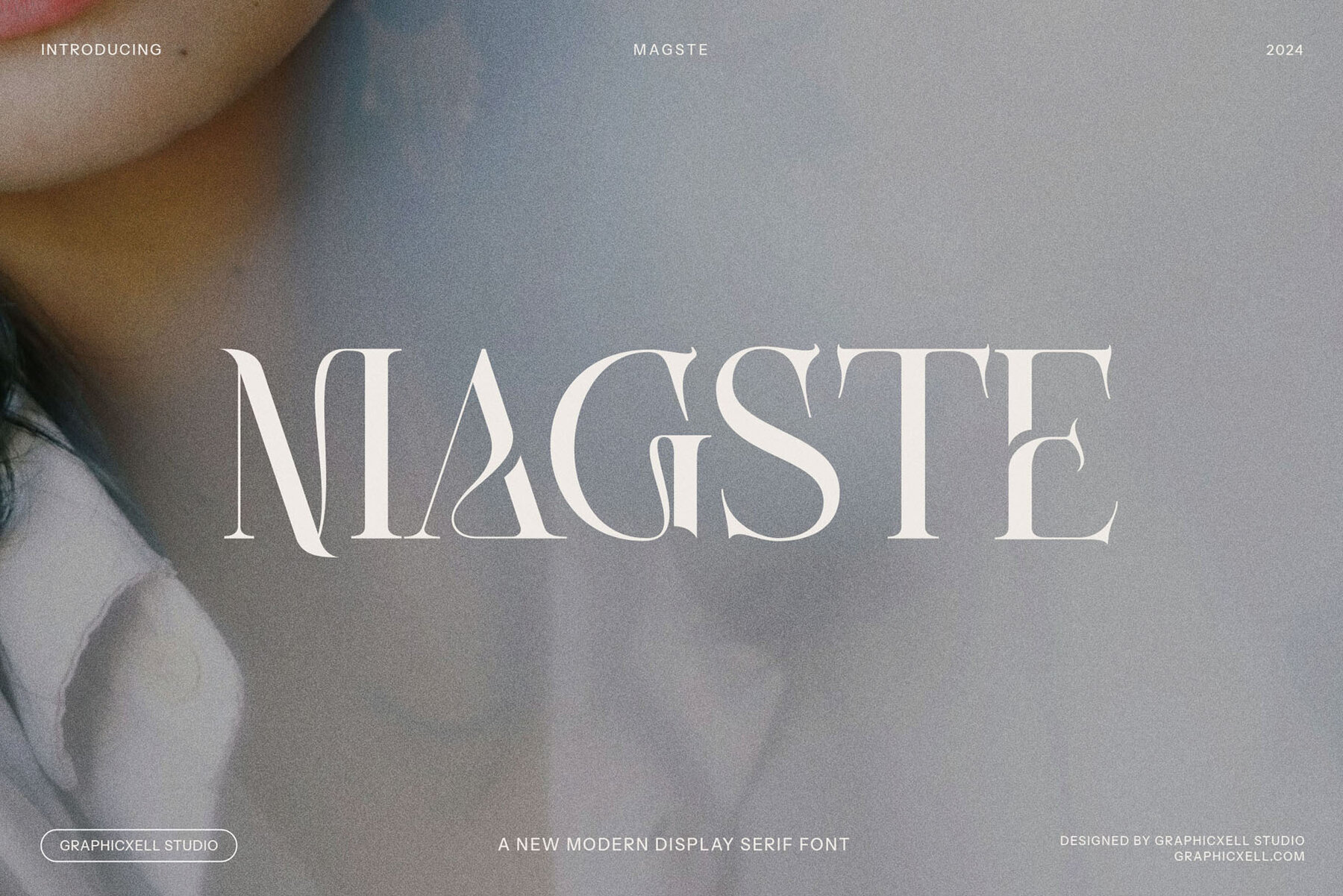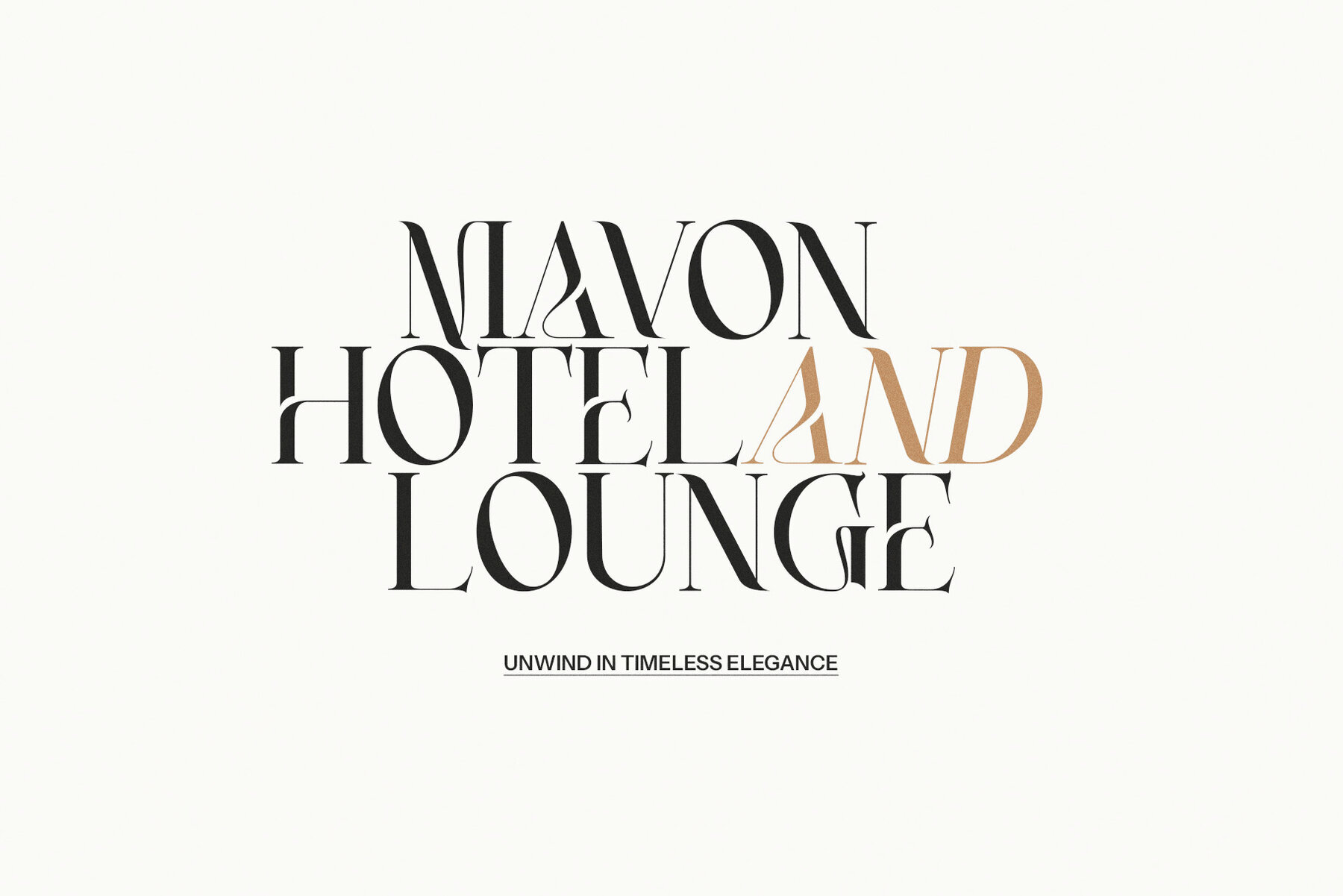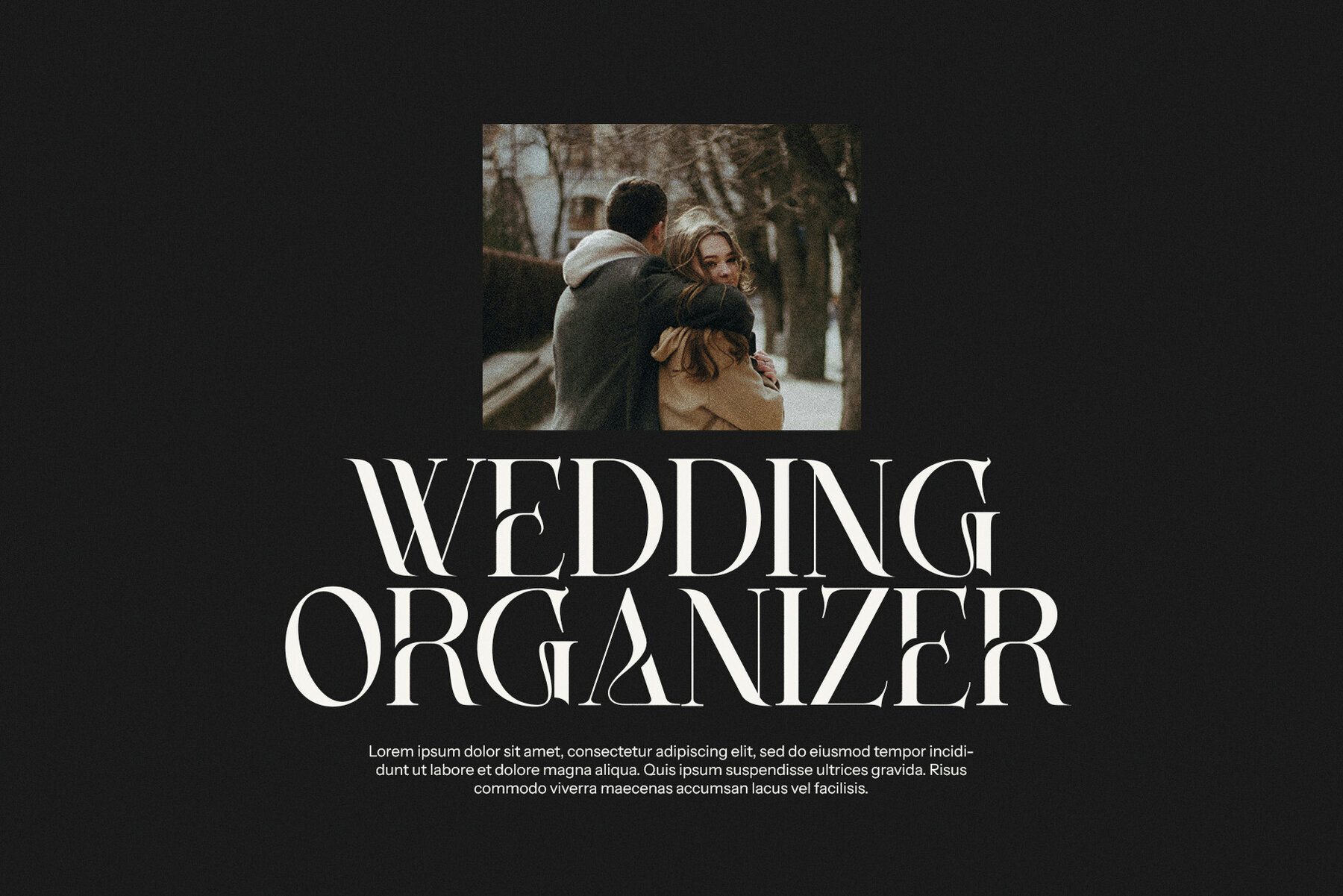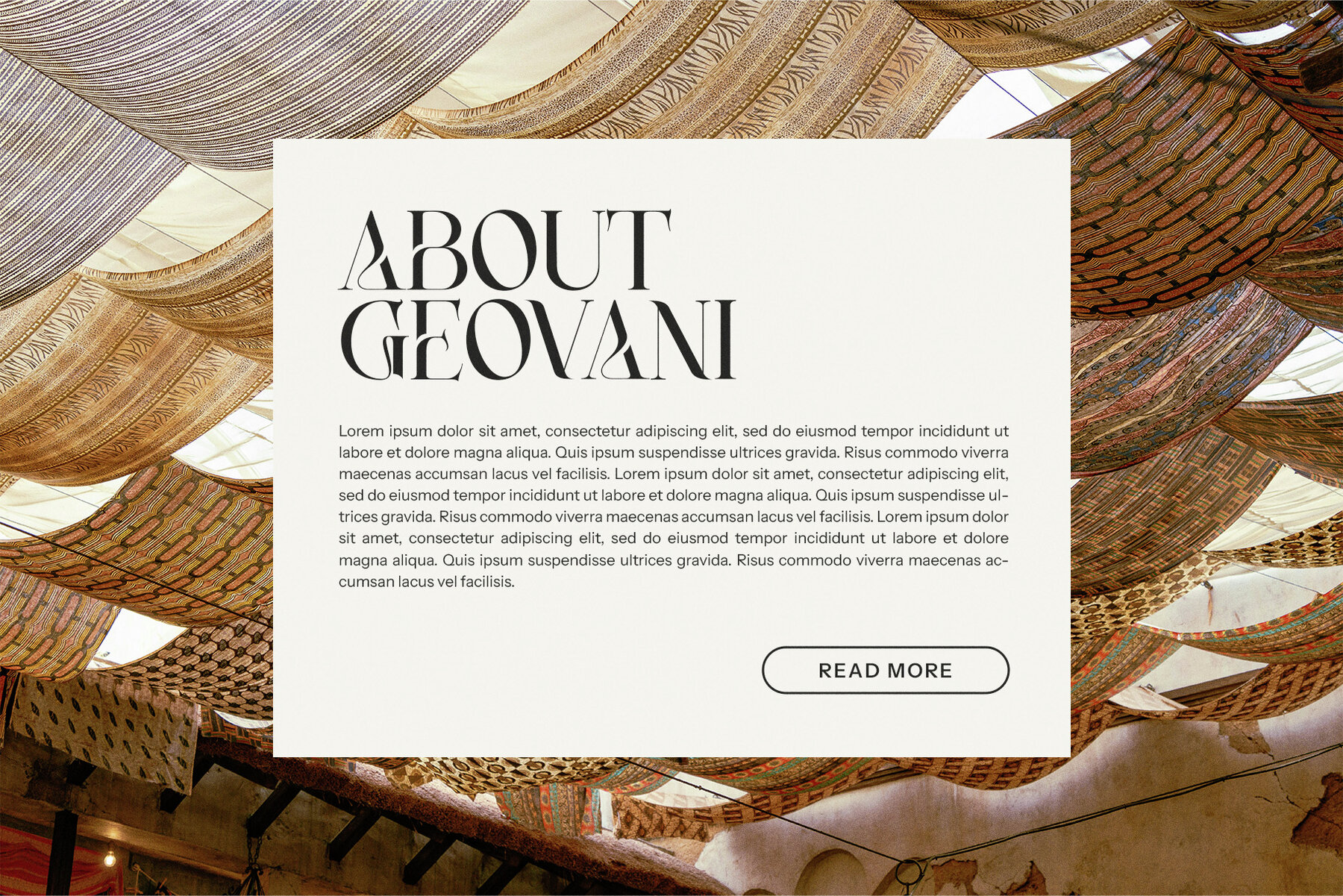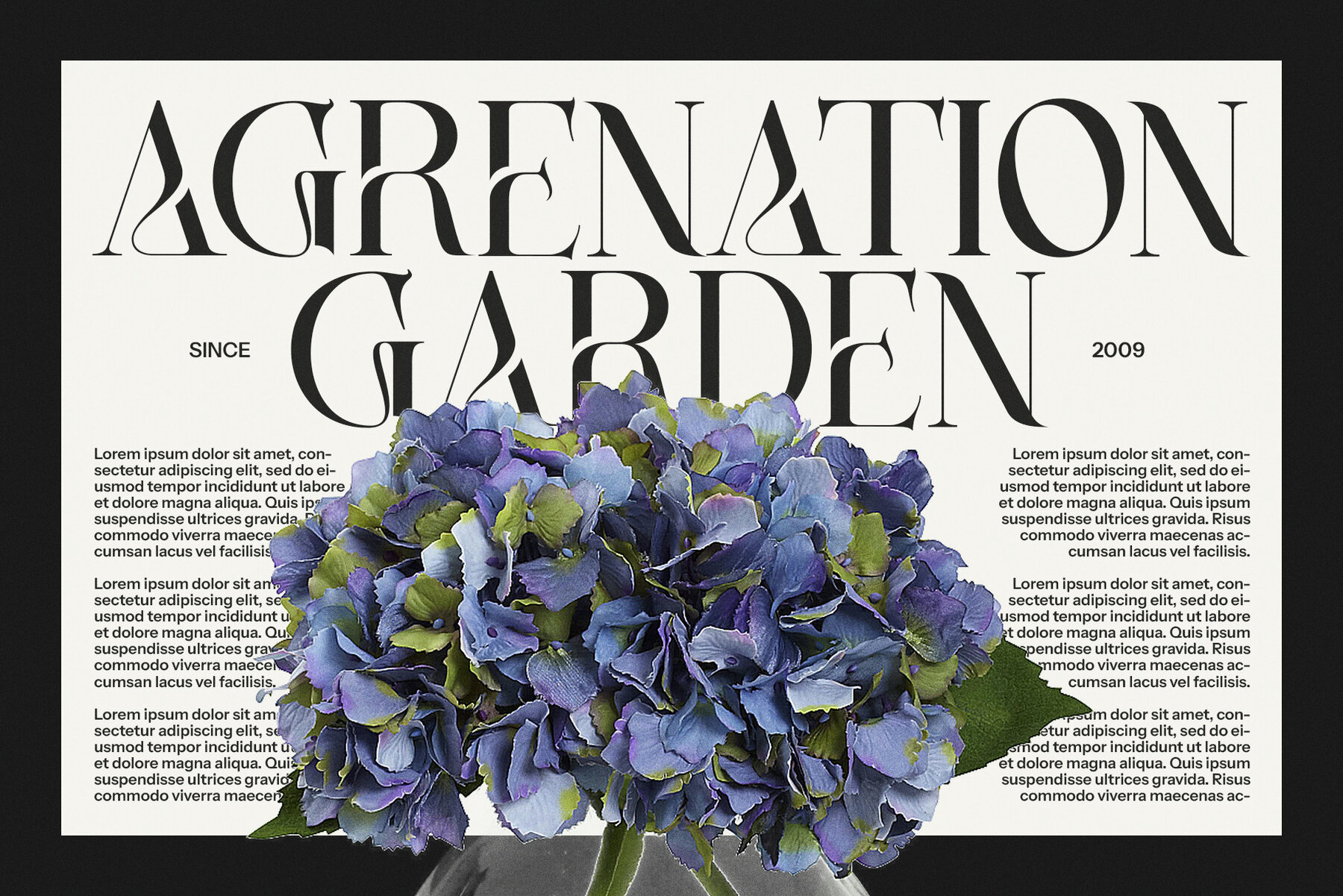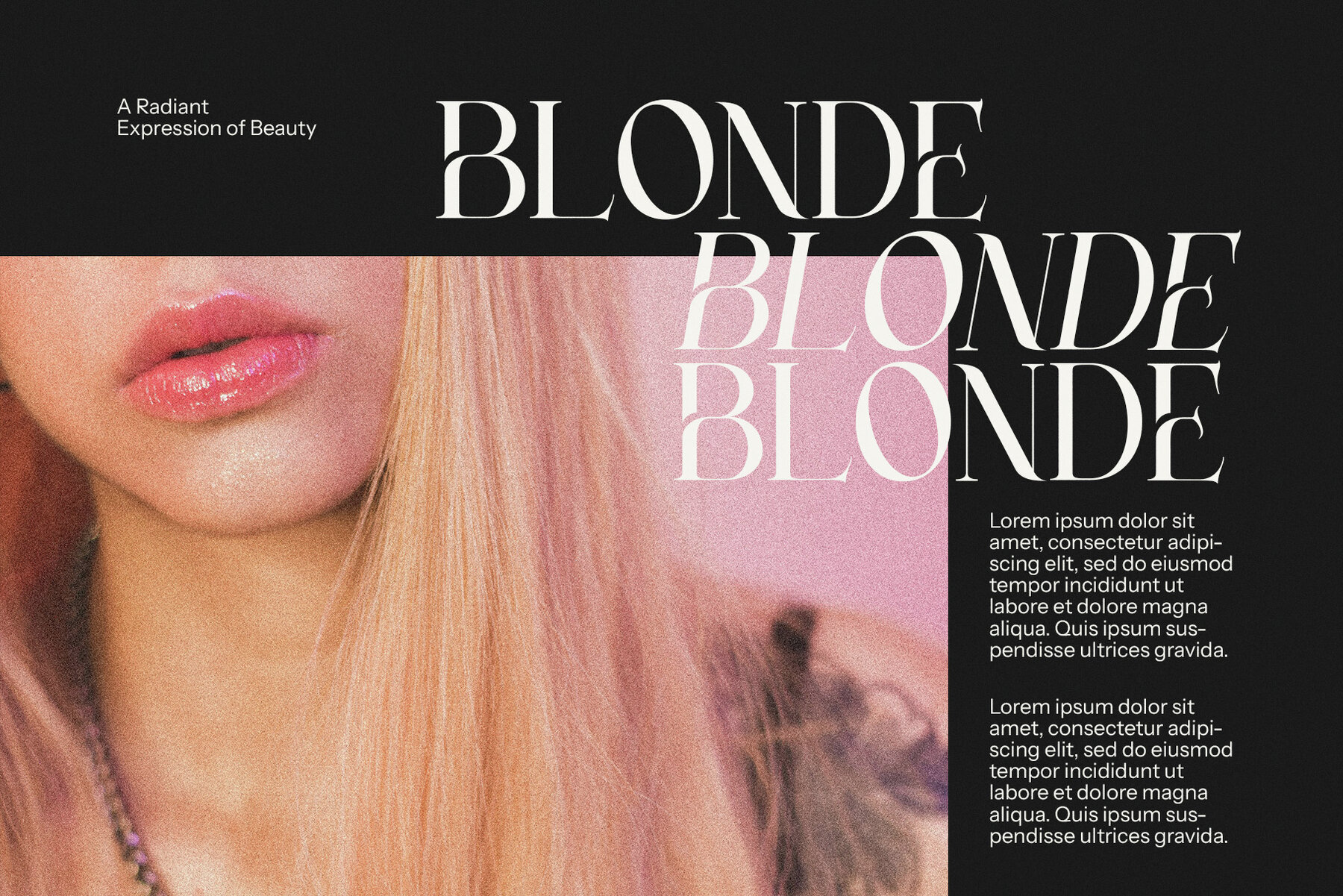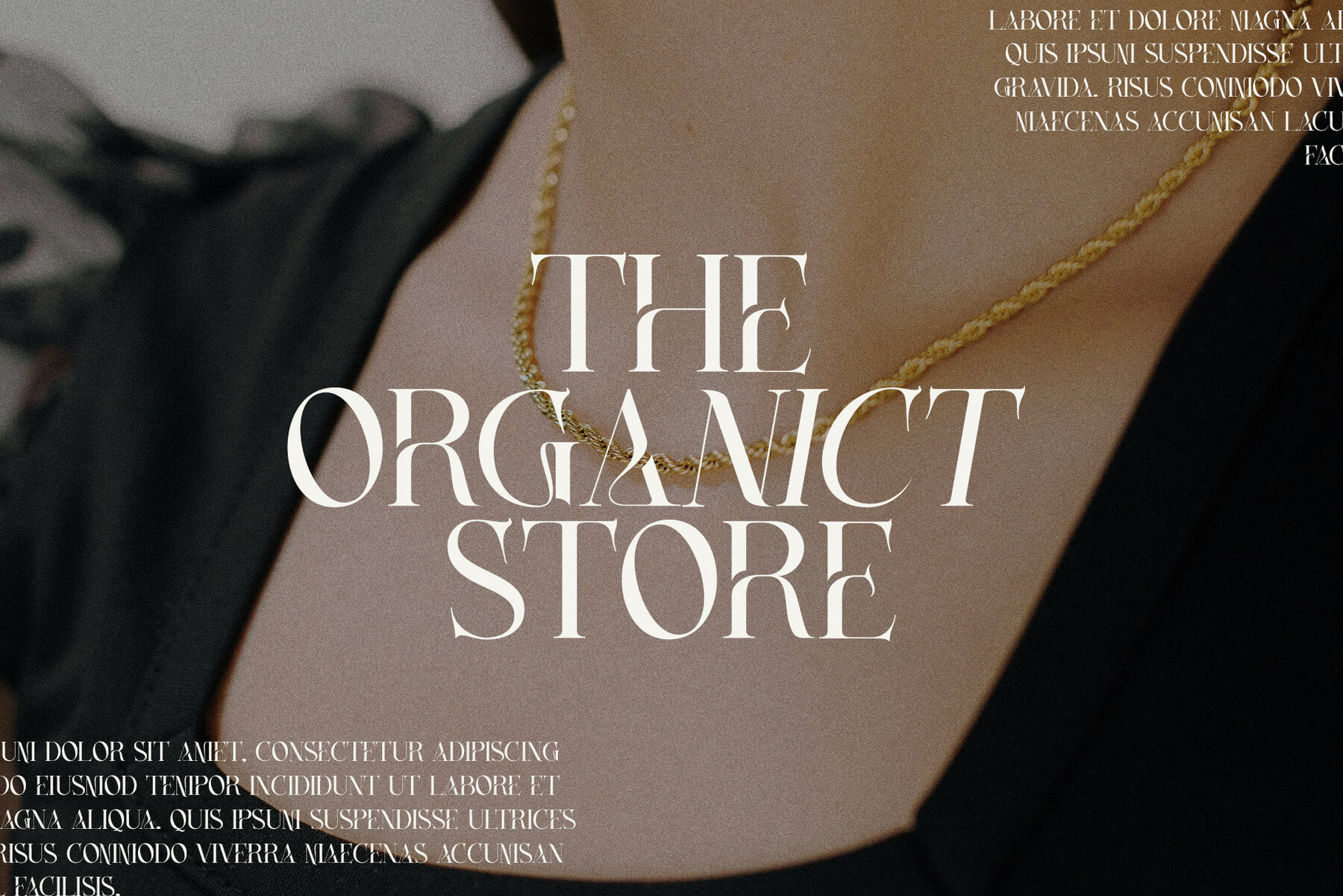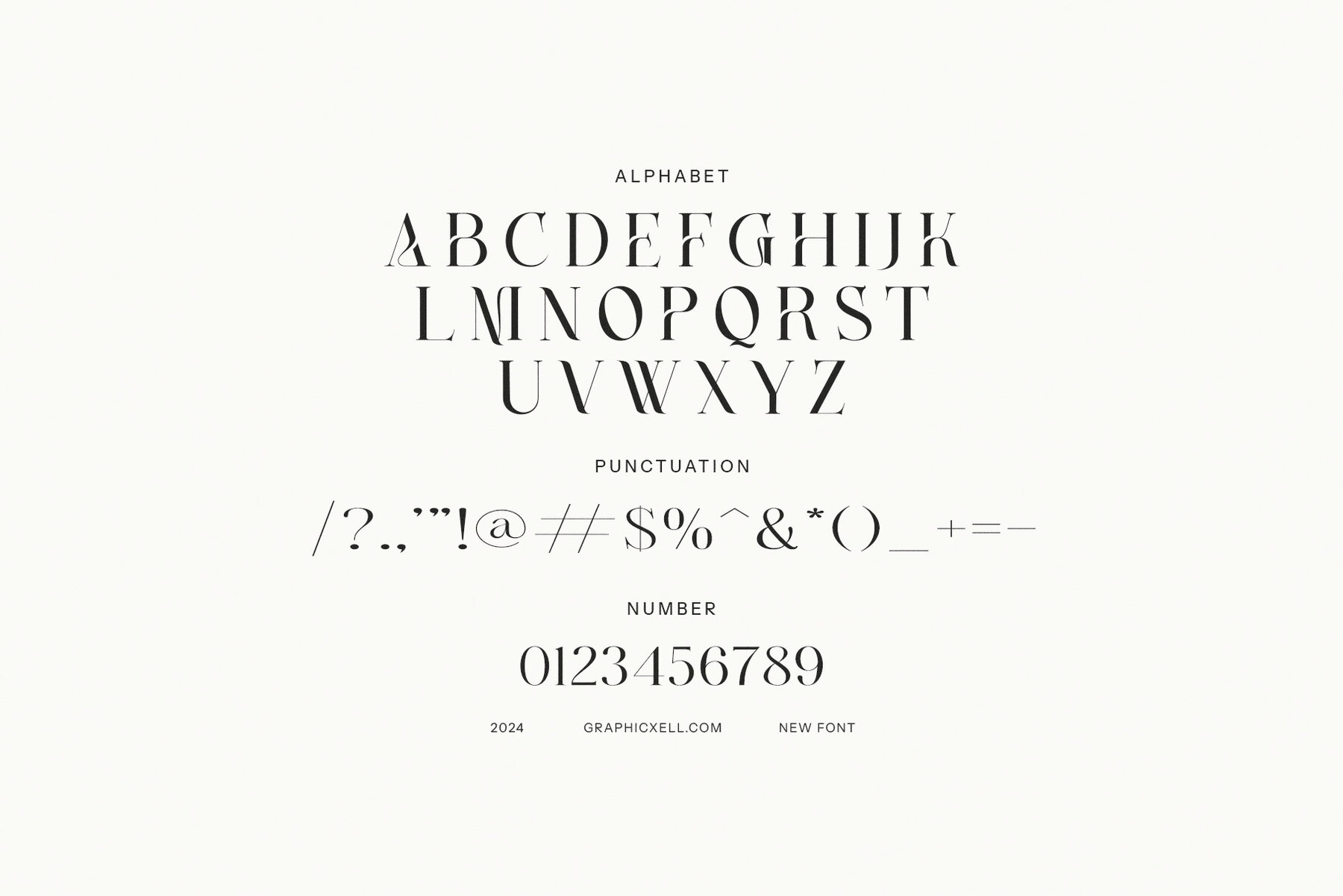
Magste Font
Magste
Magste is an elegant display serif font that harmonizes the allure of vintage aesthetics with modern sophistication. Featuring distinctive smooth cuts and refined edges, Magste offers a sense of timeless elegance infused with a contemporary touch. Its classic, vintage-inspired design is ideal for those seeking traditional elegance blended with unique character in their creative projects. The meticulous cuts of its letterforms provide a graceful flow, making it an excellent choice for endeavors requiring luxury and clarity.
Magste is perfect for high-end logos, distinctive brand identities, and eye-catching product packaging, imparting sophistication to every detail. Its elegant serifs and clean lines craft a polished, refined appearance, making it ideal for boutique businesses and upscale branding. Magste's versatility is evident in editorial design, seamlessly enhancing magazine layouts, advertisements, and website typography. The unique vintage appeal adds depth and character to publications, ensuring your content stands out. From product labels to fashion campaigns, Magste commands attention with its graceful yet bold style.
Ideal for everything from food packaging to luxury branding projects, Magste's vintage-inspired design ensures a lasting impression across various mediums, from print to digital. Its timeless elegance makes it a memorable choice for any project requiring an elegant touch, where tradition meets contemporary flair.